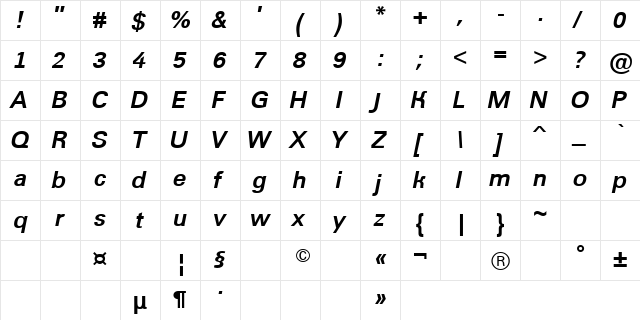
a_Grotic BoldItalic
Design Context for a_Grotic Typeface
a_Grotic is a composed and adaptable typeface that performs quietly and consistently across a wide range of design contexts. Its italic angle brings a sense of urgency and motion to the letterforms. Its bold stroke weight gives it real presence on the page.